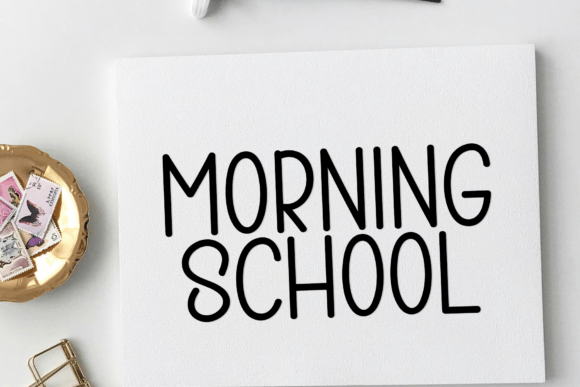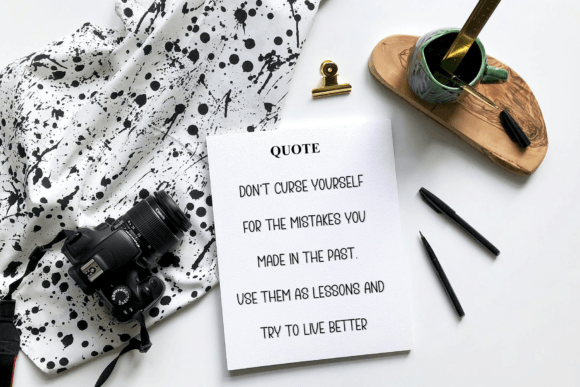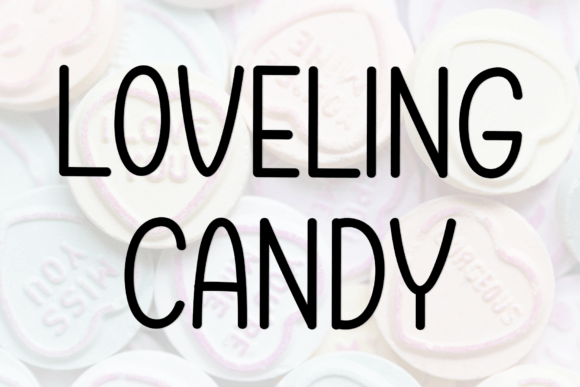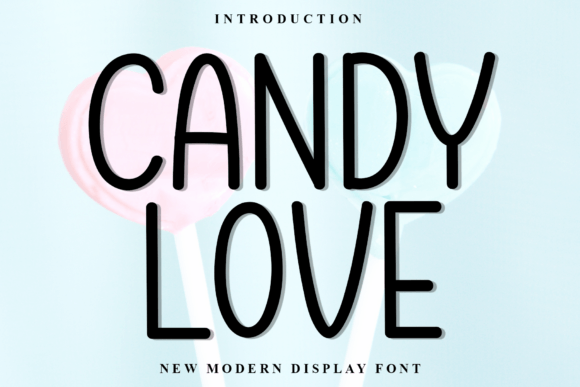
The Sweet Spot: Discovering the Charm of Candy Love Font
I’ll never forget the time I was working on a project for a client who wanted a custom design that screamed “fun” and “whimsy.” I had been searching for the perfect font for hours, but nothing seemed quite right. That was until I stumbled upon the Candy Love font. Its soft, unique touch and distinctive strokes immediately caught my eye, and I knew I had found the one. In this article, I’ll share my love for this beautiful font, its features, and how to make the most of it in your designs.
What I Love About Candy Love Font
- ✨ Unique and eye-catching design that adds a touch of whimsy to any project
- ✅ Versatile and suitable for a wide range of creative works, from crafts to digital designs
- 🎨 Perfect for design projects that require a natural, hand-crafted feel
While Candy Love font is a stunning addition to any design, there are a few things to keep in mind:
- ⚠️ Limited availability of Cyrillic and non-English characters
- Experiment with OpenType features, such as stylistic alternates, to add variety to your design
Candy Love font was designed with the intention of creating a unique and eye-catching typeface that would add a touch of whimsy to any design. The designer, inspired by the world of sweets and treats, aimed to create a font that was both fun and elegant. With its distinctive strokes and soft, hand-crafted feel, Candy Love font is perfect for designers looking to add a personal touch to their work.
Q: What type of projects is Candy Love font best suited for?
A: Candy Love font is perfect for a wide range of creative works, including crafts, digital designs, and design projects that require a natural, hand-crafted feel.